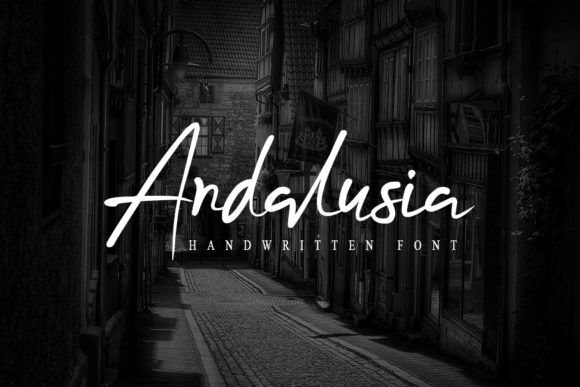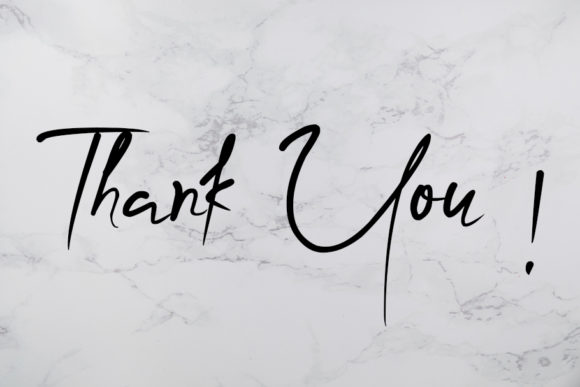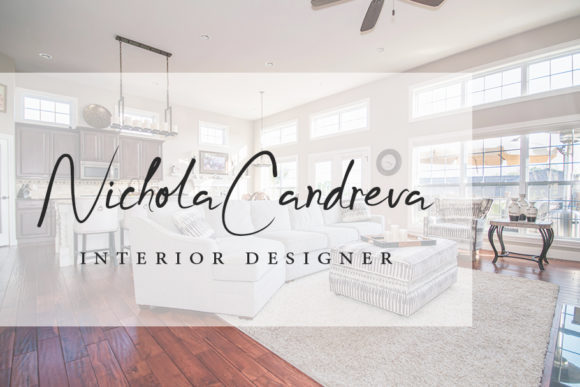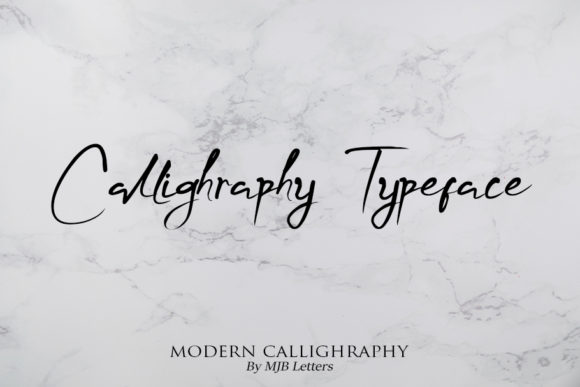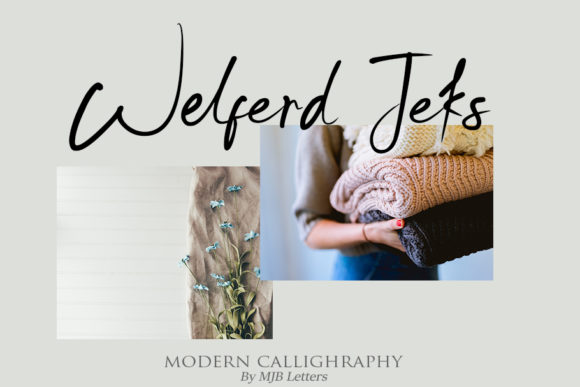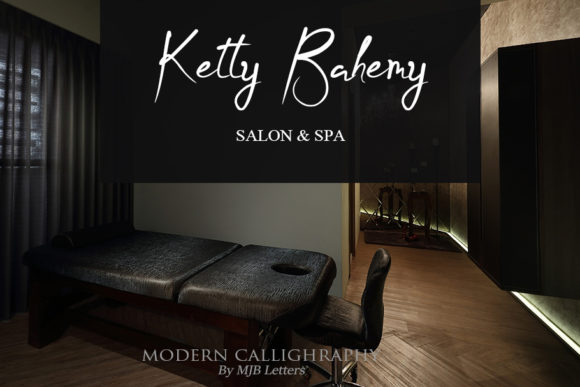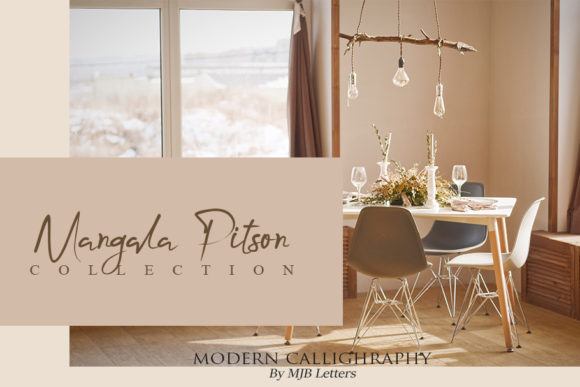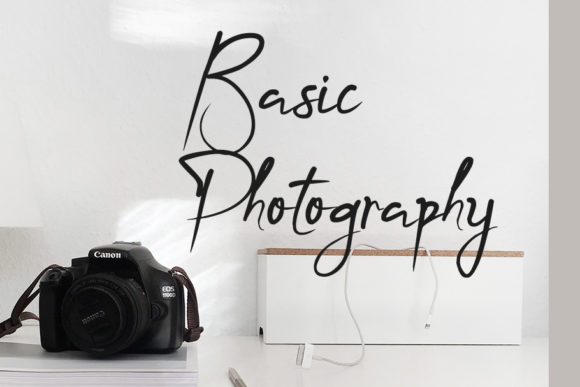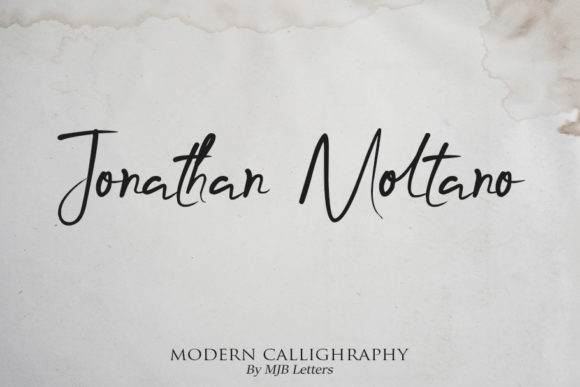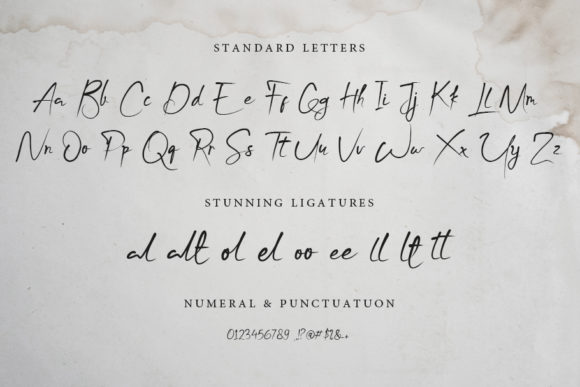
Andalusia Font
About Andalusia Font
The Andalusia is an elegant handwritten font. It has a very natural writing style which can be used to add a personal touch to your designs.